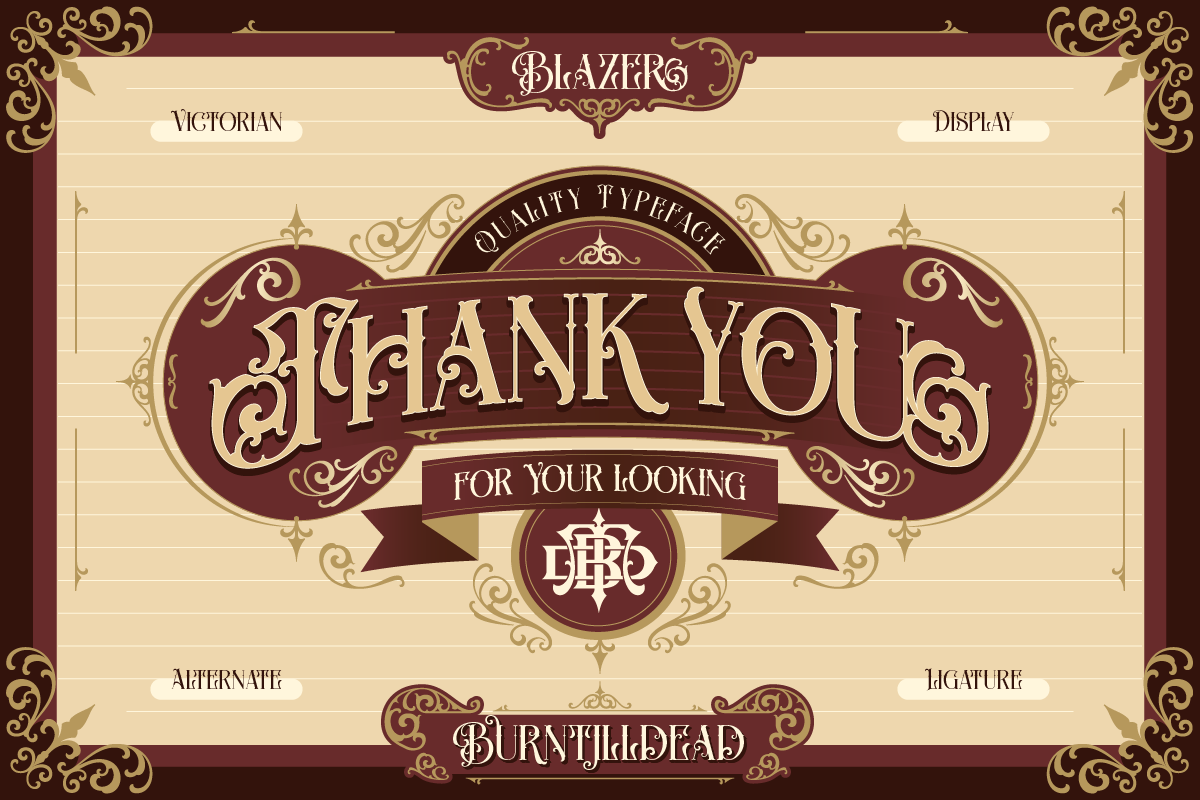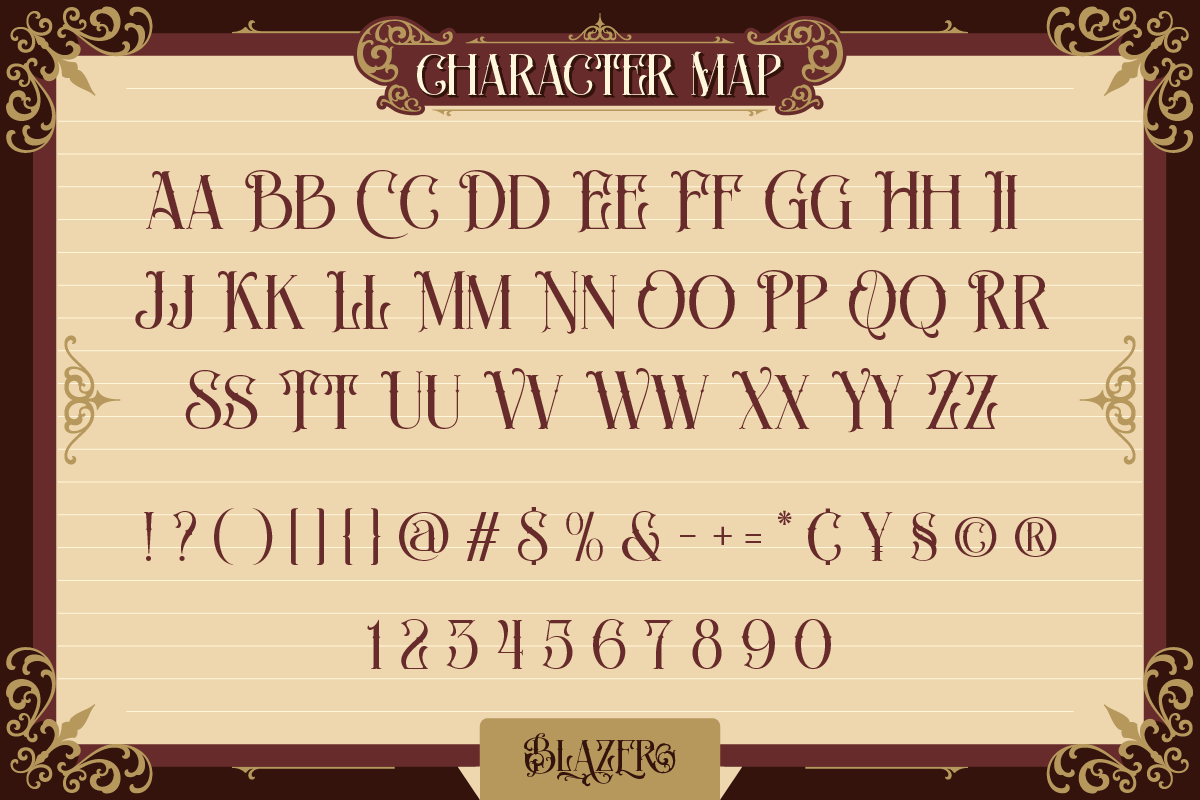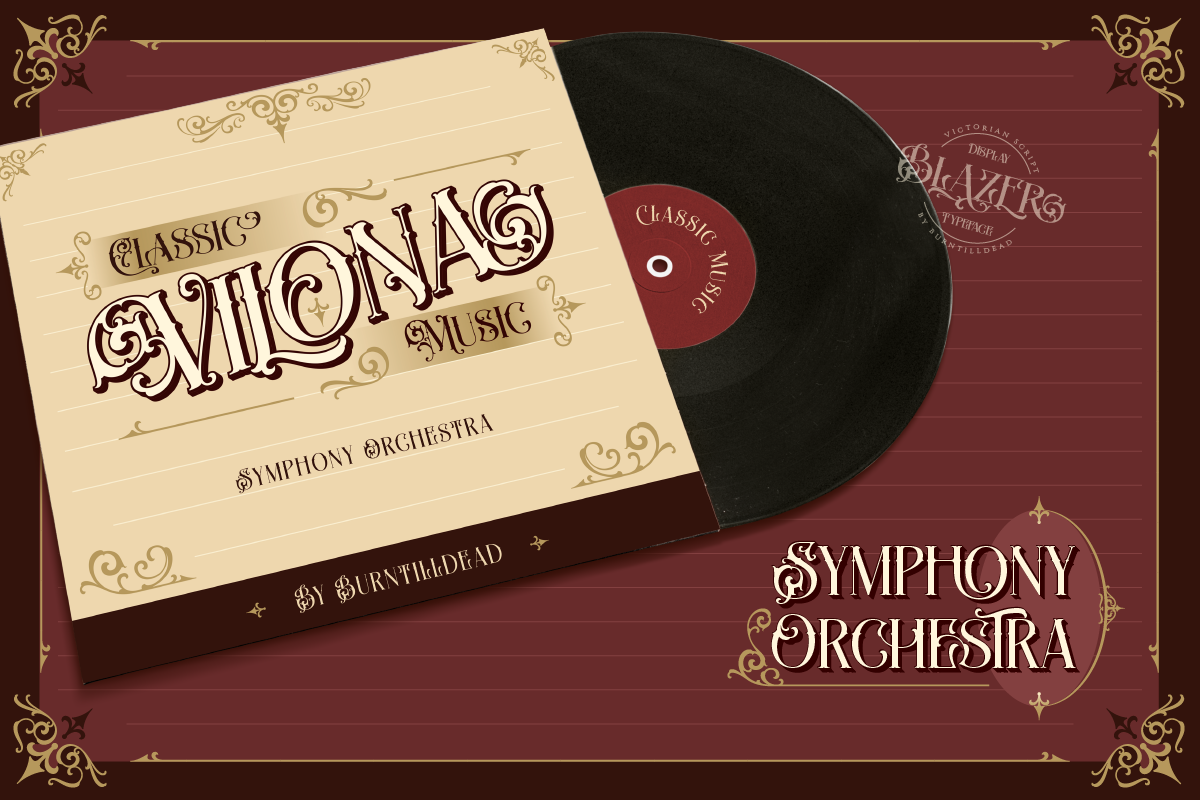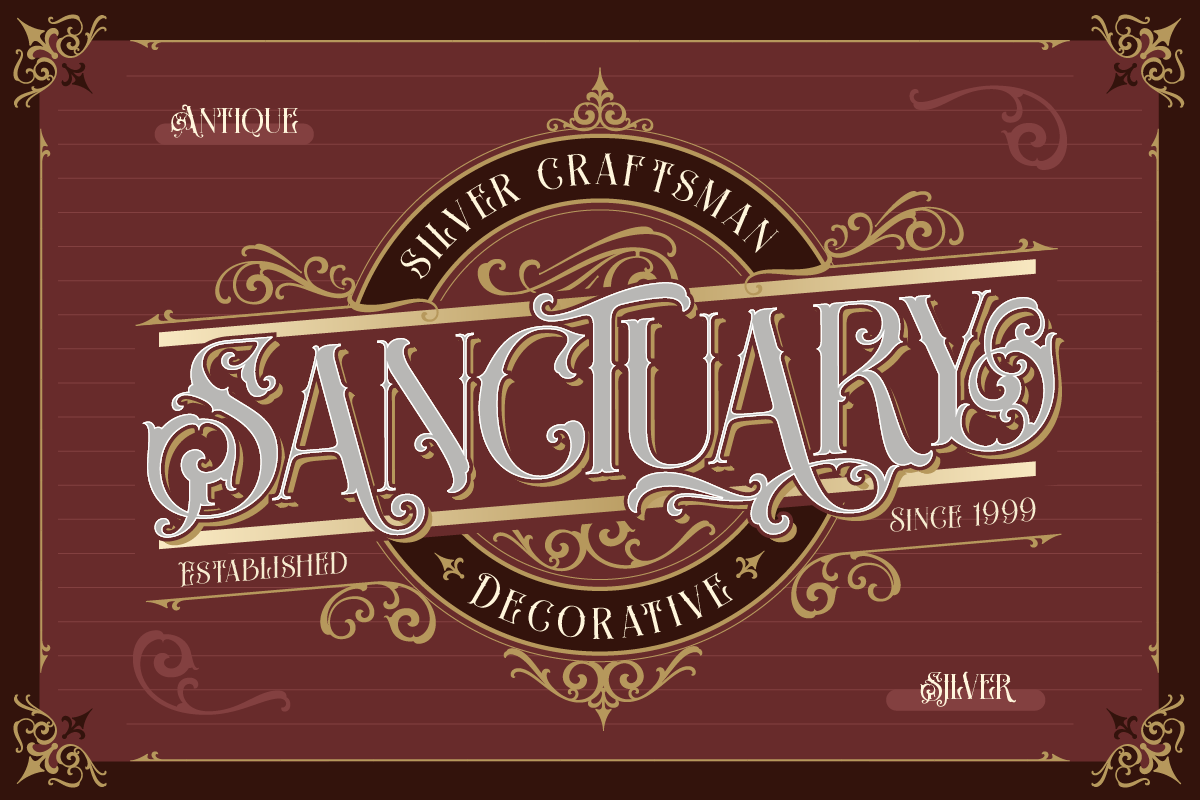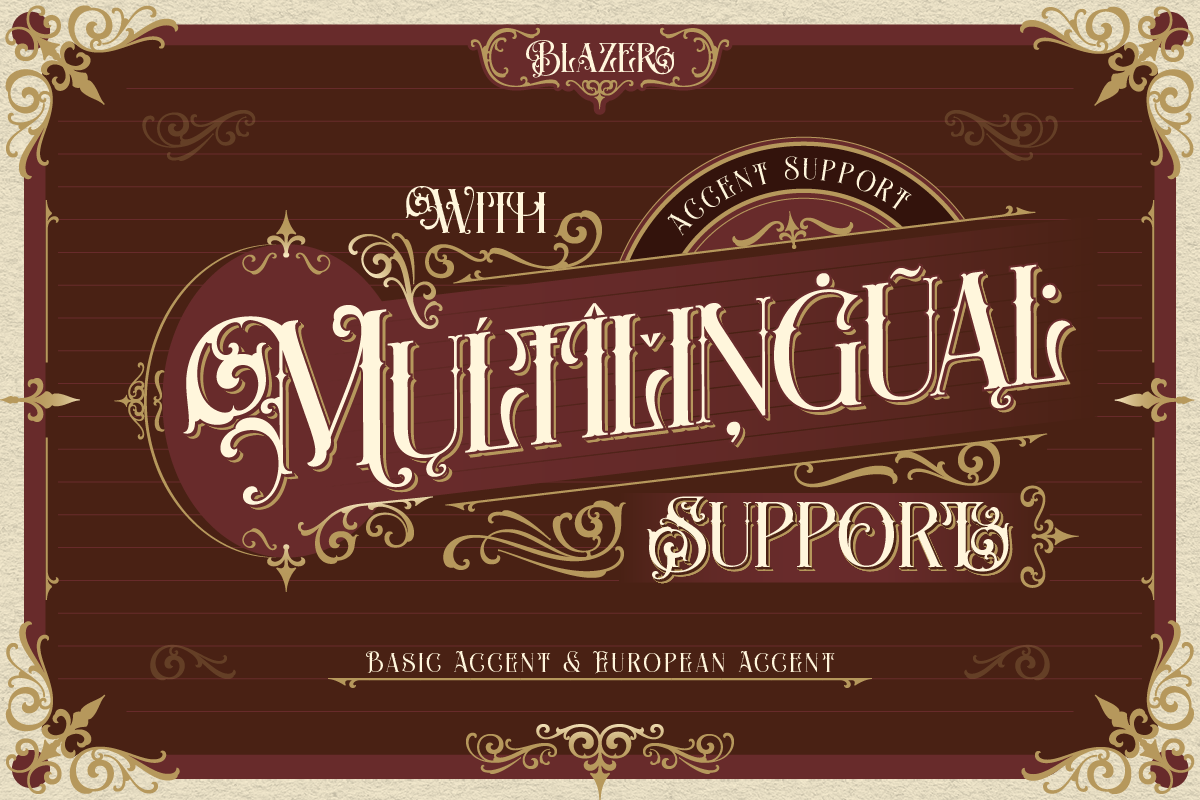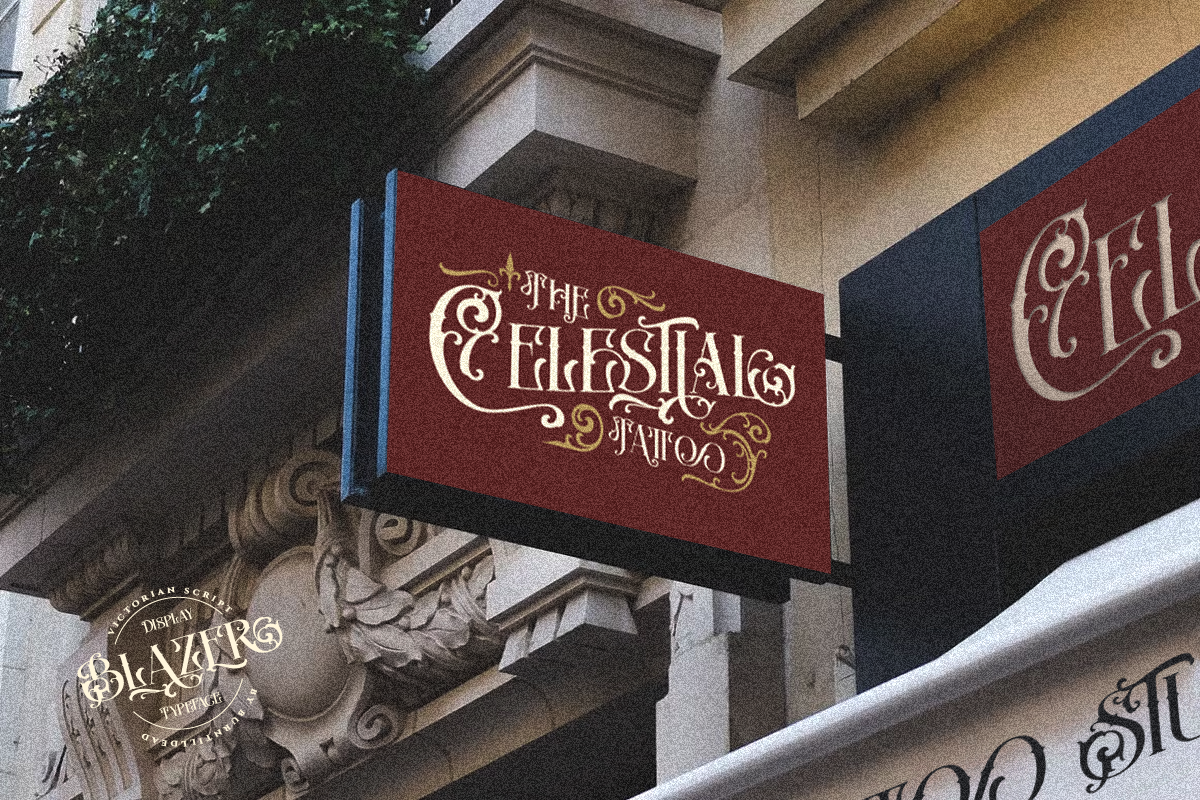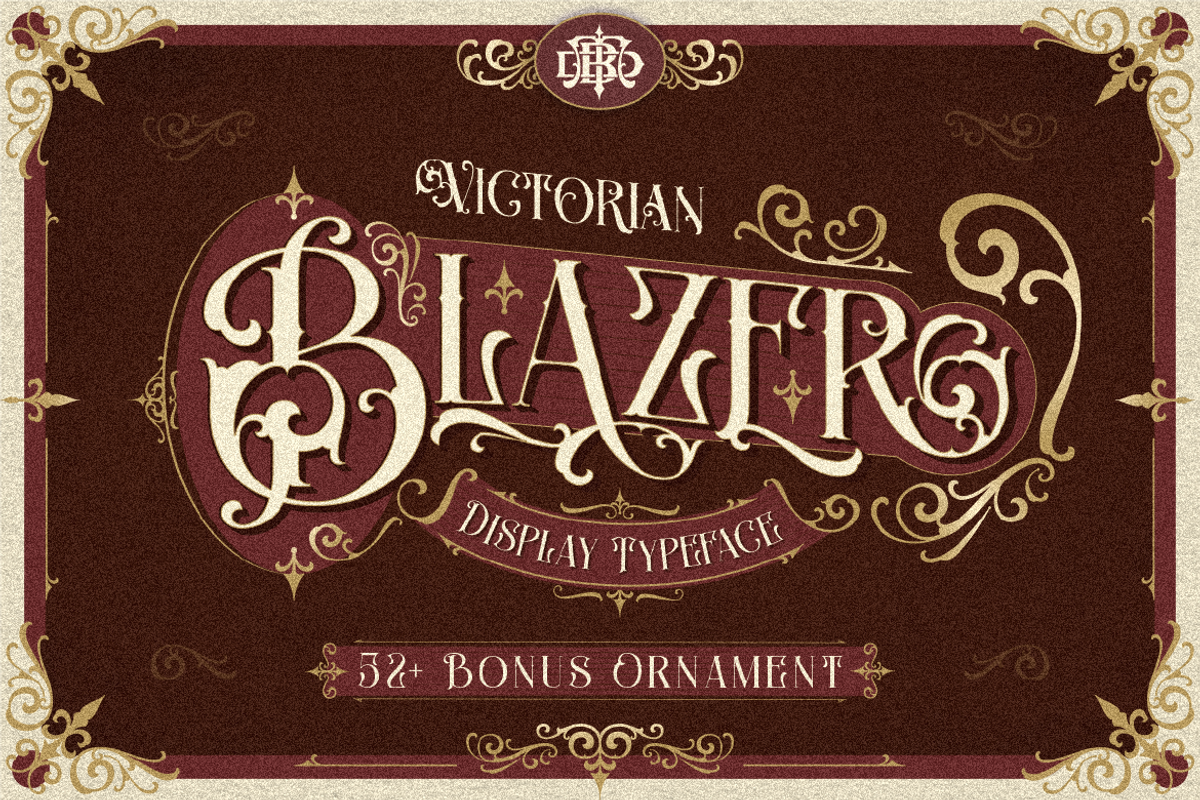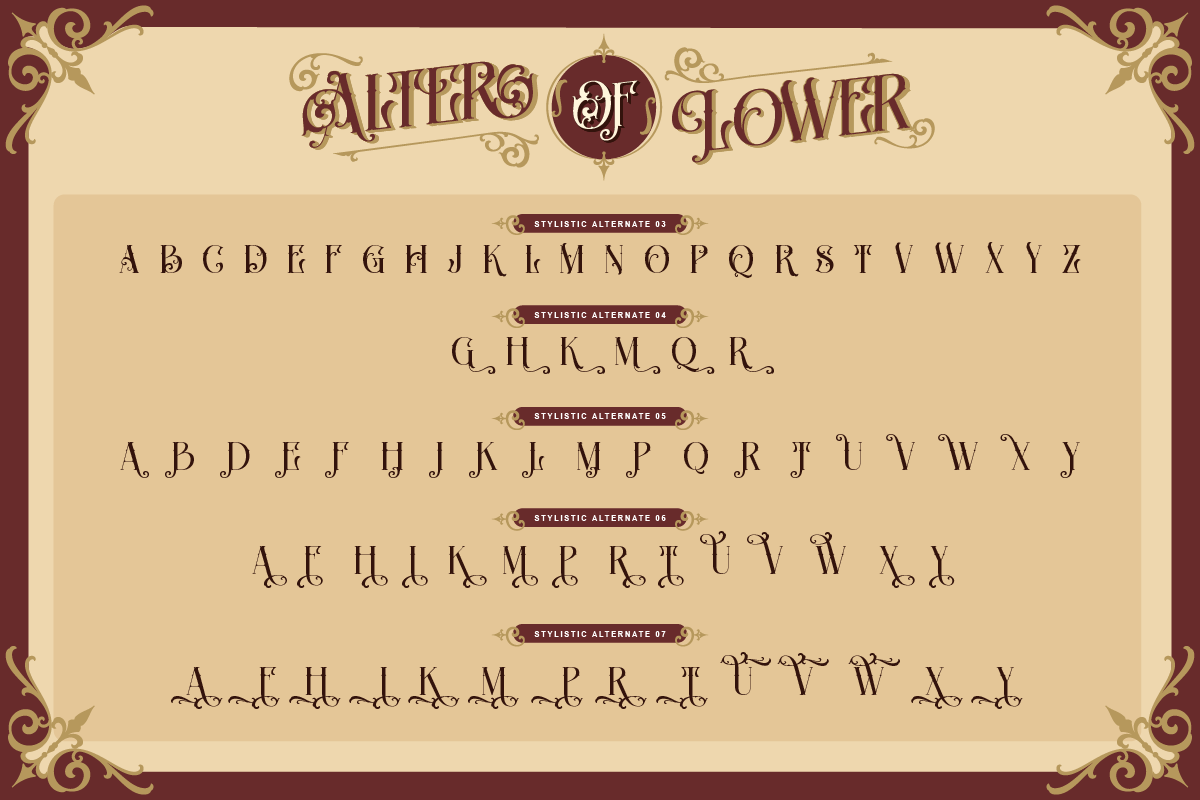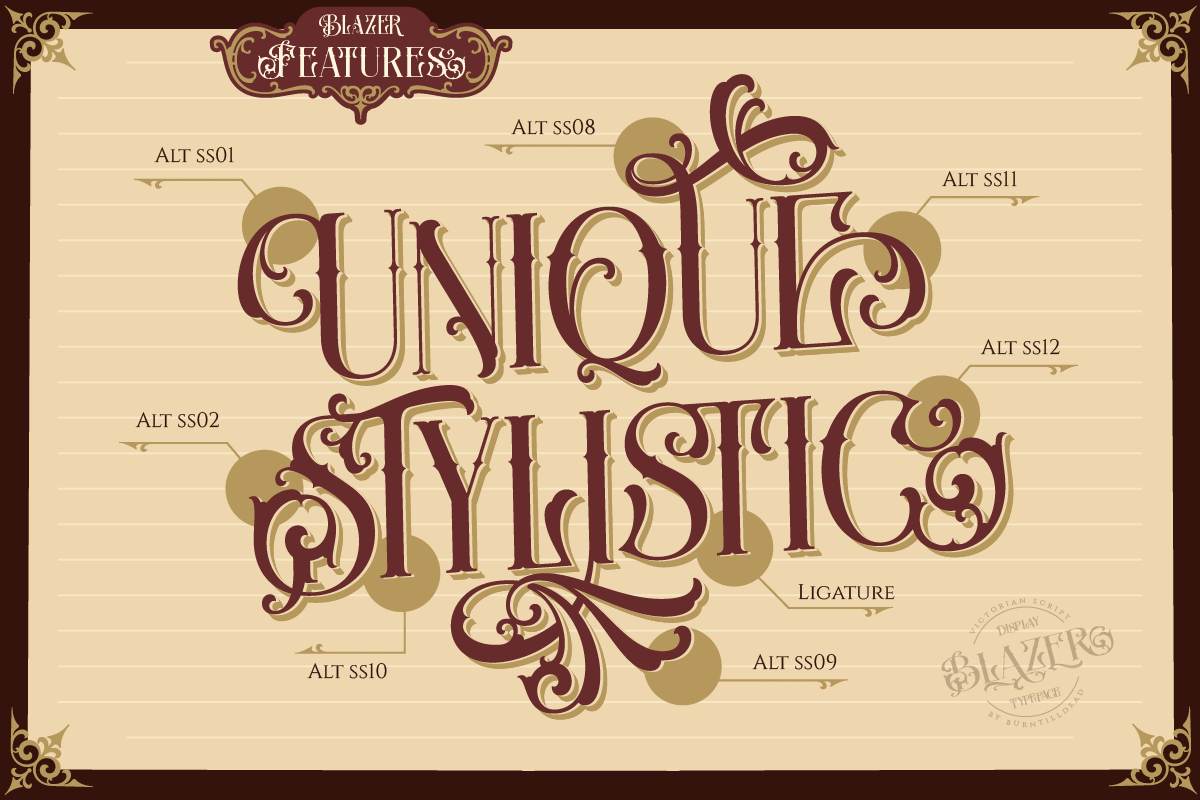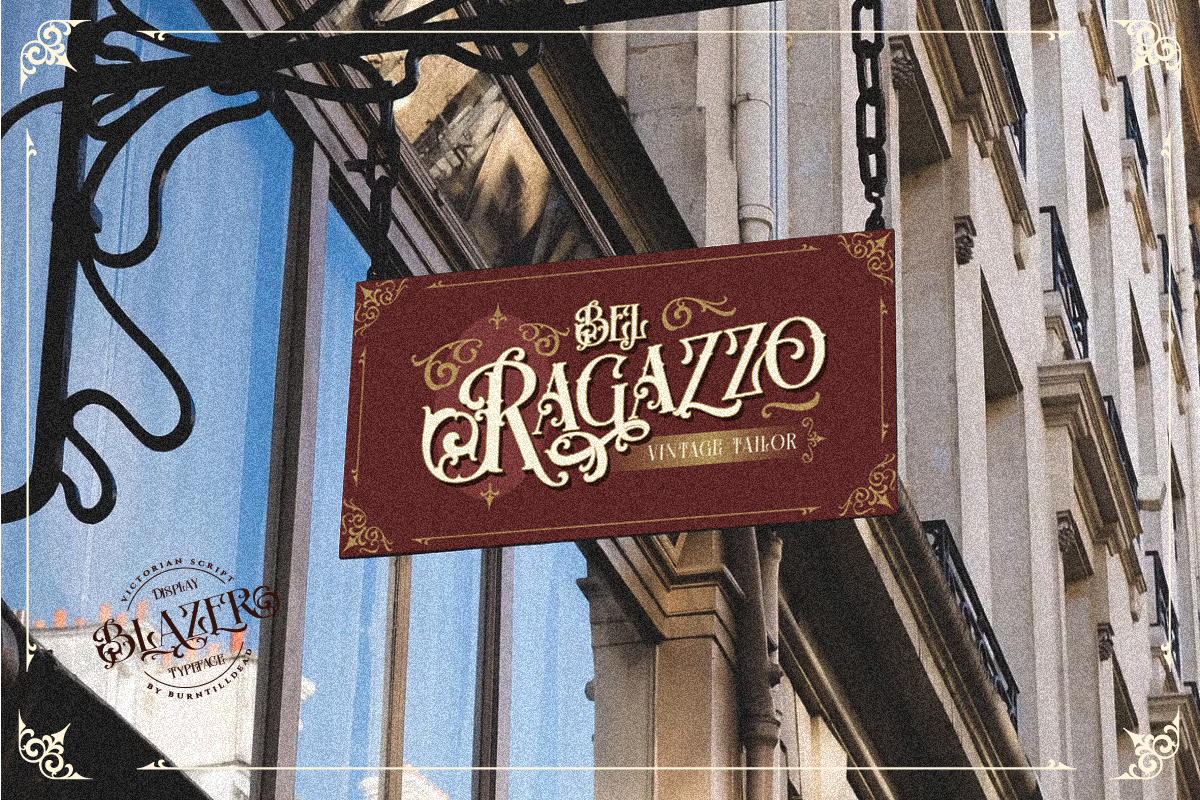
Blazer
Introducing Victorian stylist typeface, Blazer. Make your design looks vintage and classy with the uniqueness touch from the font. Easy way to bring 1800 era to your design project! This package font including free ornament to adding classical, vintage and victorian looks in your design. So effortlessly to make your design Victorian charm.
Blazer A-Z
Alternates (more than 10 alternate)
Ligature
- Blazer ornaments